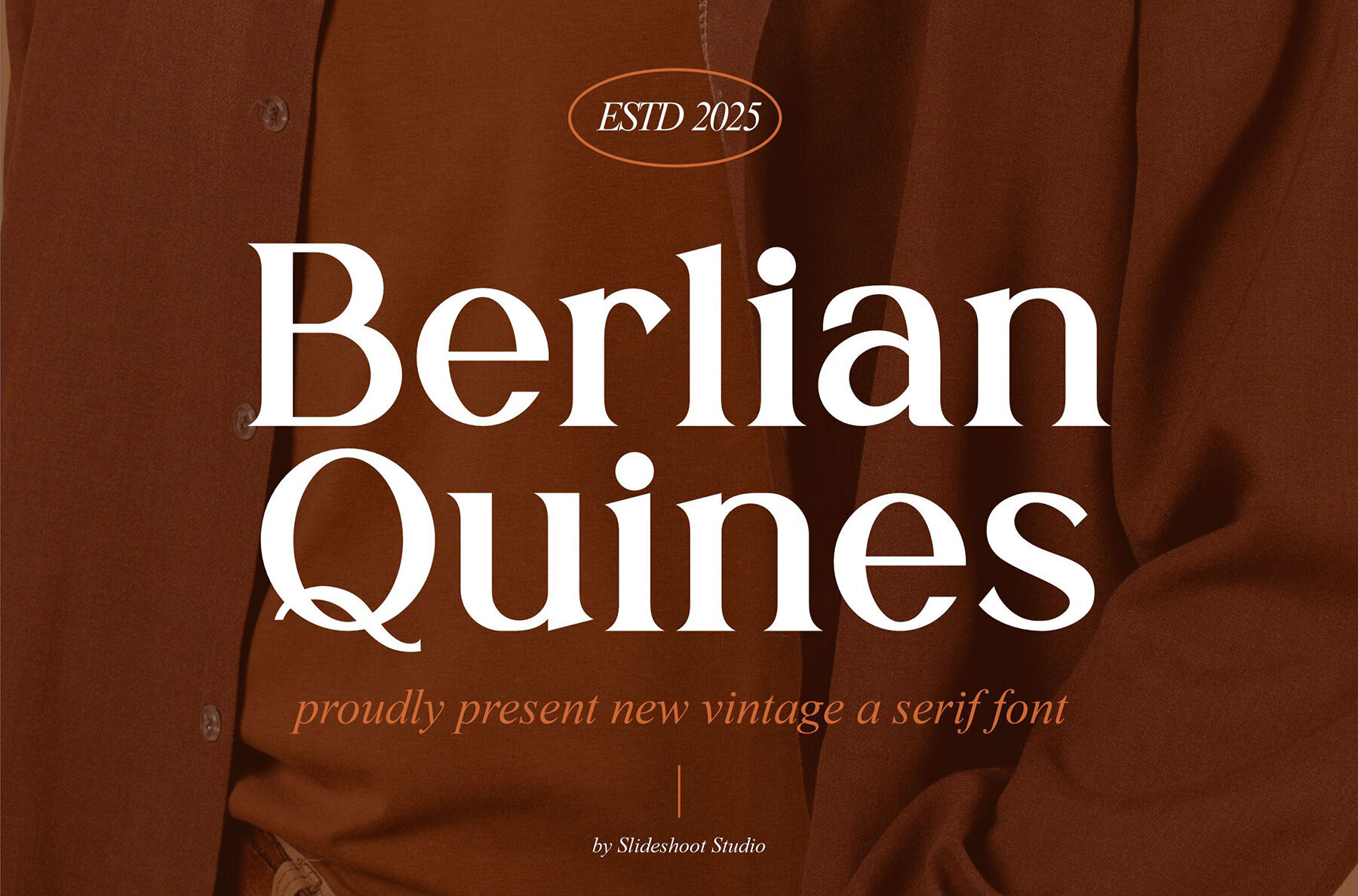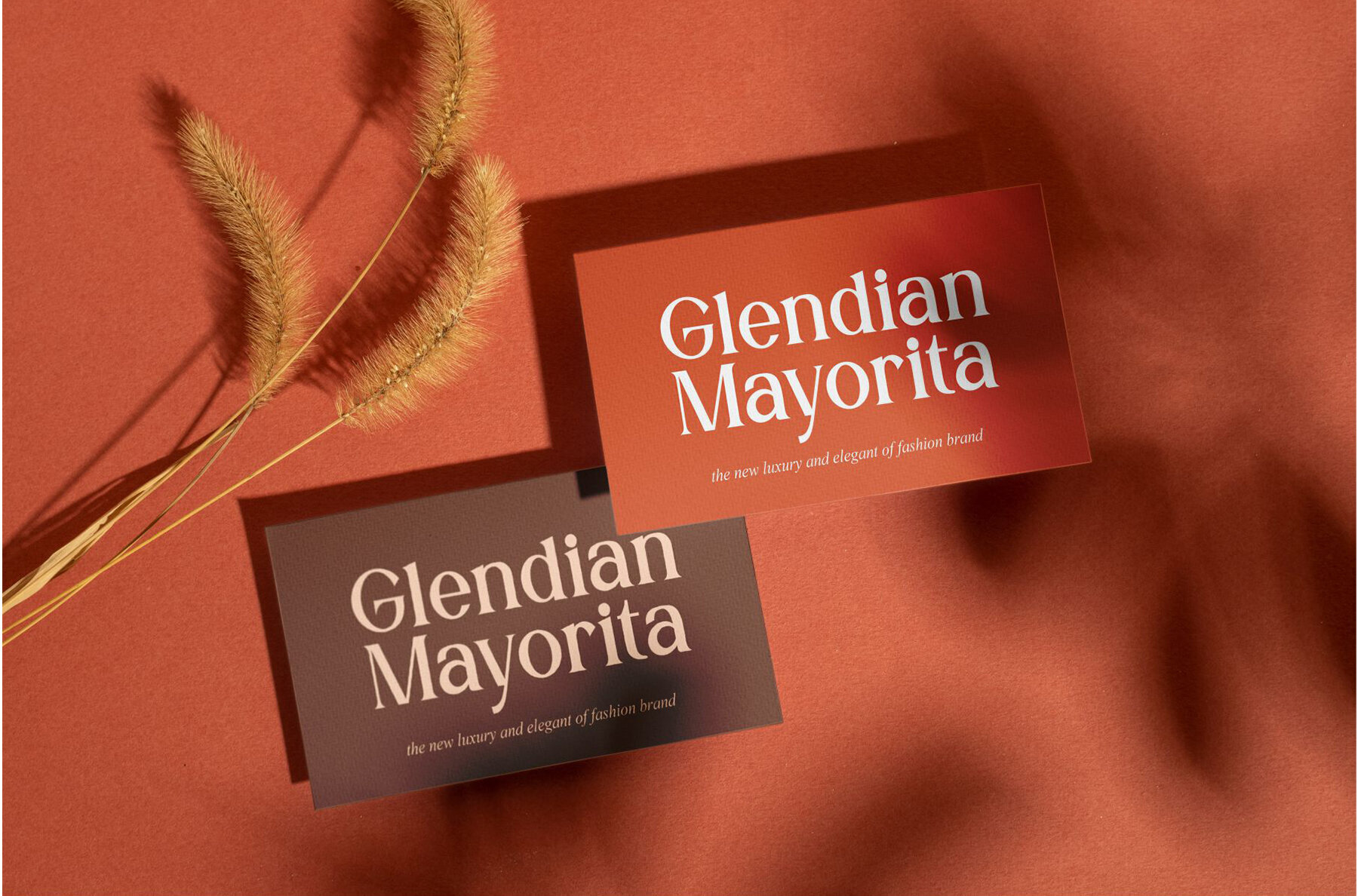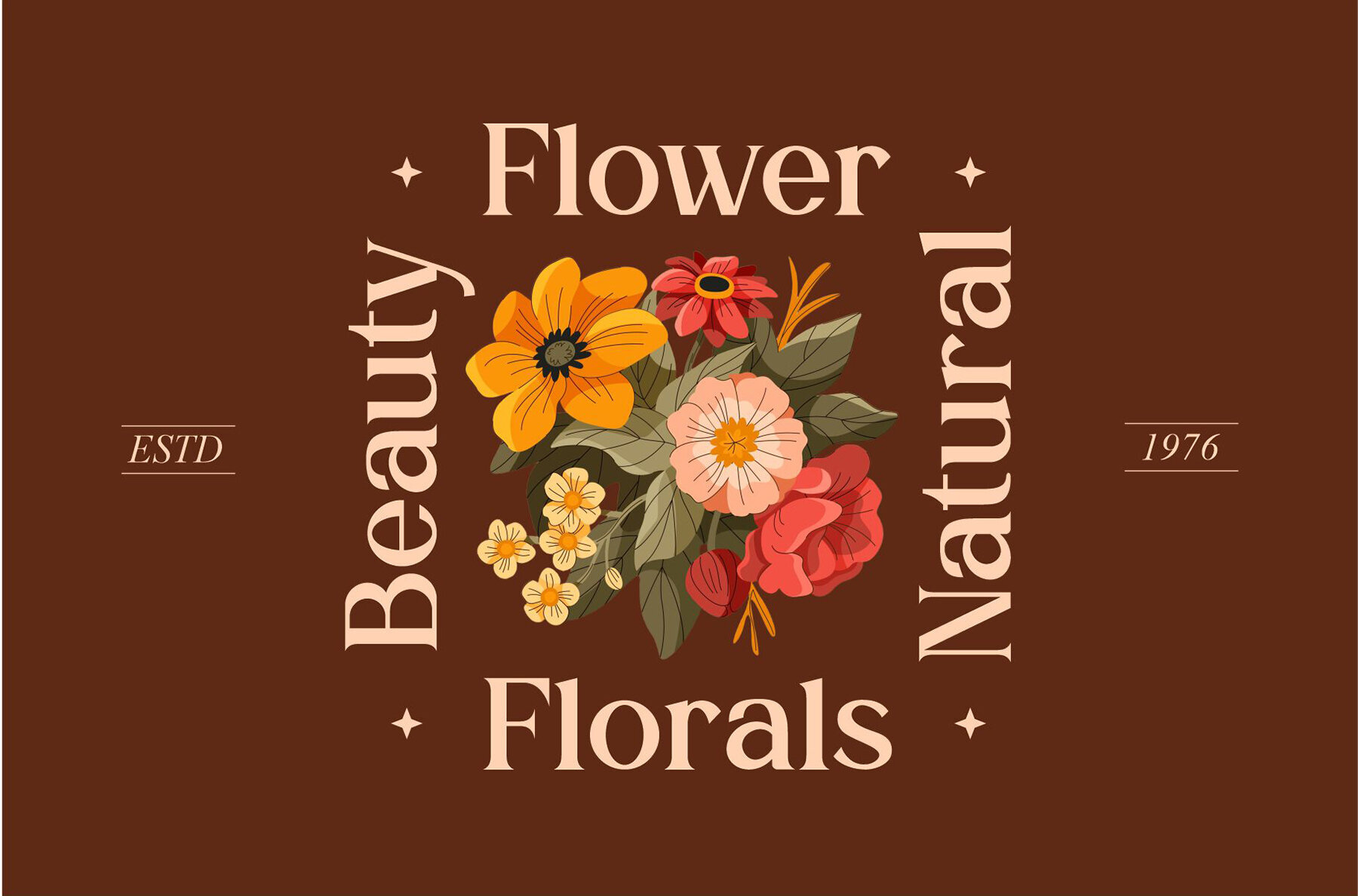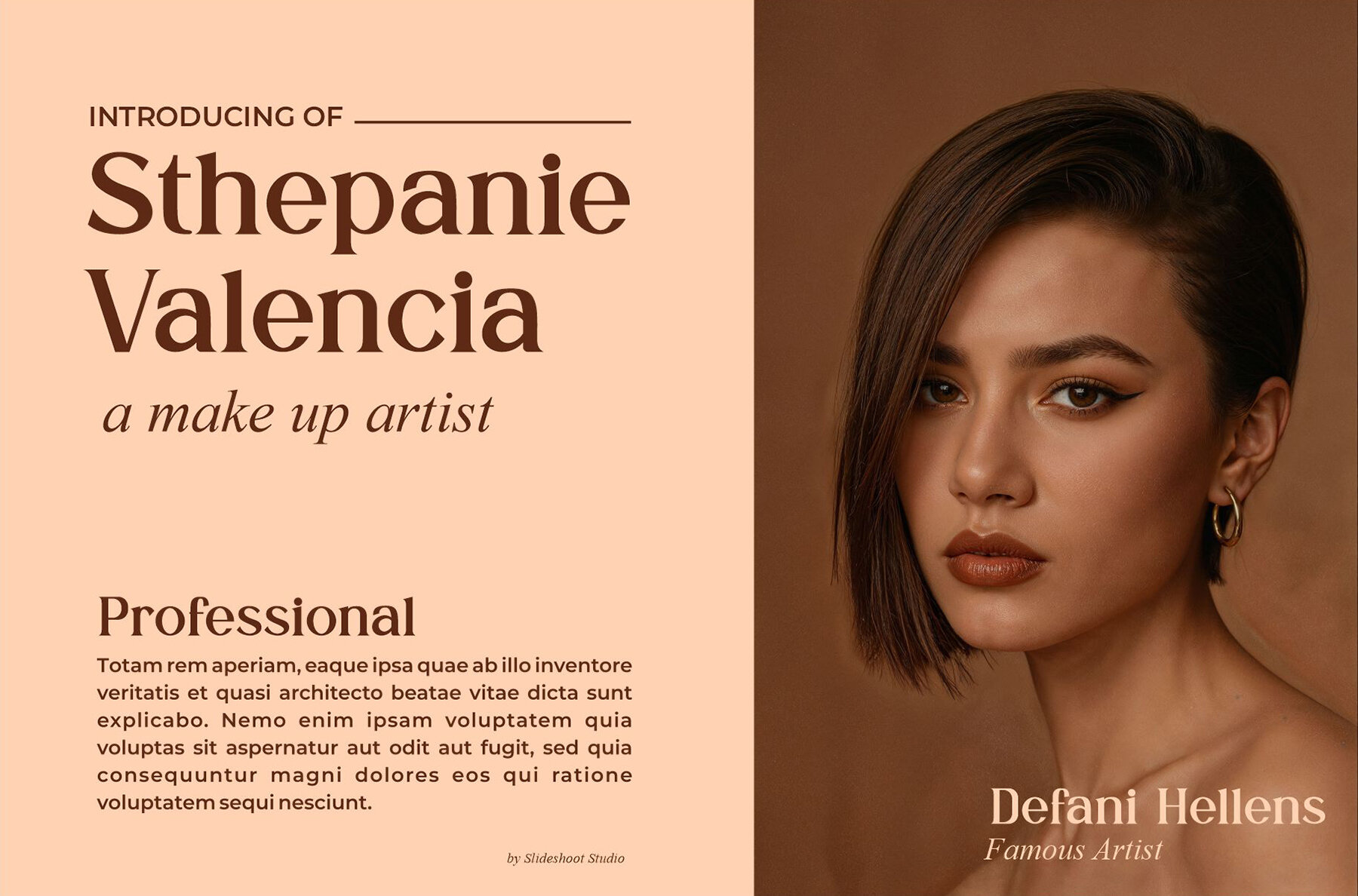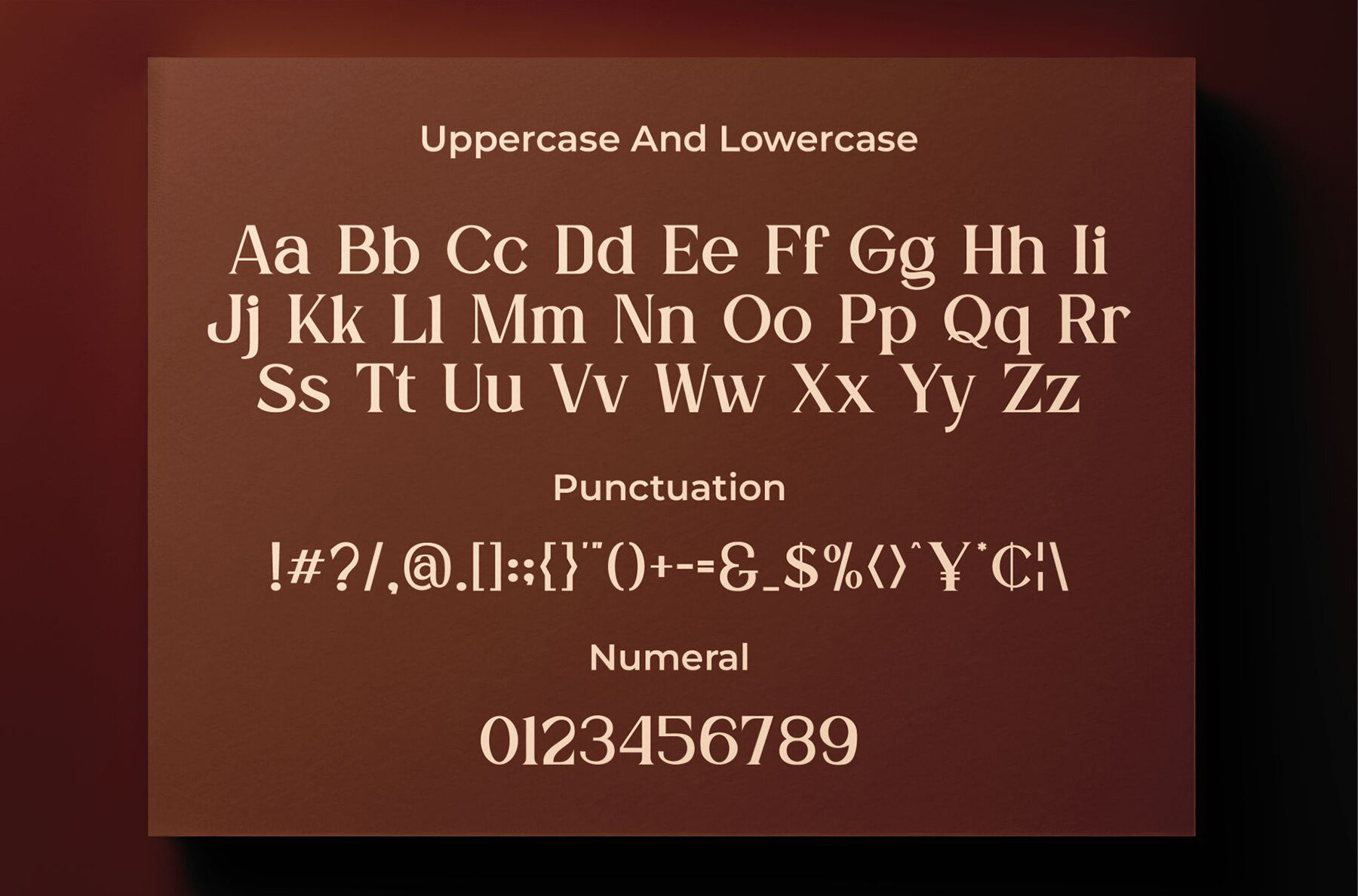
Berlian Quines Font
Berlian Quines
Discover Berlian Quines, a charming serif font that exudes elegance with its trendy and bouncy style. Featuring a distinctive wood theme, this cute display font brings a unique touch to your designs. Ideal for a wide range of applications, Berlian Quines seamlessly enhances invitation cards, company logos, movie titles, business cards, book titles, and brand identities.Berlian Quines: Elegant Serif Font with Unique Wood Theme